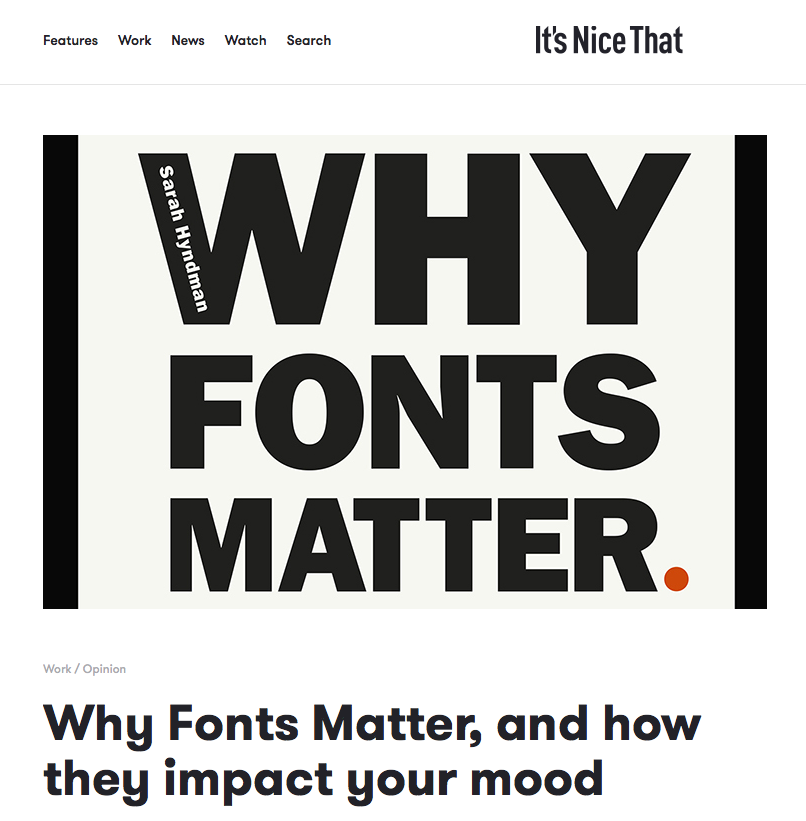
Experience the emotional impact of type: Mood at MAX multisensory installation
Type Tasting installation at Adobe MAX in Los Angeles
Type Tasting created a large-scale multisensory installation for Adobe Fonts at the Adobe MAX conference in Los Angeles from 2nd to 6th November 2019.
“F*!*ing genius!”
Visitors were immersed in the mood of different typefaces through all of their senses. At each station they were invited to put on headphones, to smell a scent in a jar or by flipping the pages of a book, to eat a small taster and to feel a texture. Each set of stimuli was designed to bring a mood to life in the participant’s imagination. There was curiosity and intrigue as the first visitors arrived and they were soon returning with groups of friends saying “you have to try this”.
This is a multisensory installation featuring a selection of booths designed for participants to experience the emotional impact of type. Each booth immerses you in the mood of a typeface with sound, smell, texture and taste.
How designing for all the senses has more impact on mood
We absorb information through all of our senses simultaneously. This speeds up our ability to judge situations and react quickly and is fundamental to our ability to recognise signals and communicate. This played a vital role in human survival when our ancestors needed to respond to danger quickly, often relying on sound or smell when it was dark and a large proportion of our genes are still devoted to detecting odours.
It’s Nice That ‘Why Fonts Matter, and how they impact your mood’
Typography might just help you date, solve obesity and impact your mood; so we’ve learnt from type fanatic Sarah Hyndman. We’ve previously dubbed her “the one woman tour-de-force behind the Type Tasting enterprise”, which looks at the power typography has over our lives and senses. She’s now published a new book on the subject, Why Fonts Matter, and has kindly offered us an extract looking at the effects of typography on our emotions.
“Physically, we use our voice, facial expressions. gestures and posture to convey a wide range of emotional cues from the subtle to the dramatic. Typefaces and the way they are used provide a similarly extensive emotional range typographically.”
Can a font set the mood?
If fonts were to play the starring roles in a movie, how much would they tell you about each scene?
In this movie the fonts set the scene, provide the sound track, tell the the story and alter the mood. What do the typefaces tell YOU about this story as it unfolds? Take the survey and tell us at the end, here are some of the suggestions so far:
“A very messed up zombie-rom-period-action clip”
“About a normal guy, where something horrifying happens and then he has to fight for his life”
“Bizarre coming of age story”
“Harry Potter kind of thing but not as dark and with sort of a whimsical ending”
“Tons of action and probably explosions of some sort”
“In the end, everything works out and he gets the gal”
Do you agree?